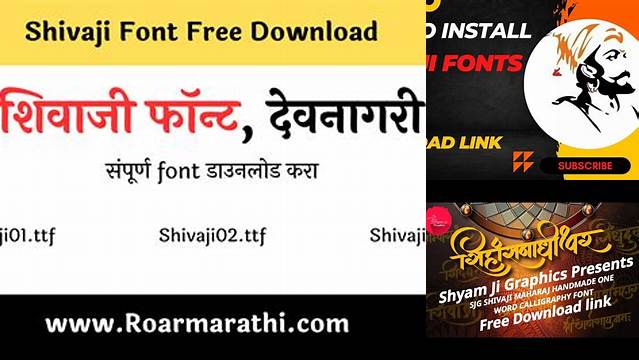
Hey guys! Are you looking to add a touch of historical elegance and cultural richness to your designs? Well, you've come to the right place! We're diving deep into the world of Shivaji fonts, exploring everything from their historical significance to where you can snag them for free. So, let's get started and unleash the power of Shivaji fonts in your creative projects!
What Are Shivaji Fonts?
Shivaji fonts are a unique family of typefaces that draw inspiration from the historical scripts and calligraphy styles prevalent during the reign of Chhatrapati Shivaji Maharaj, the great Maratha warrior king. These fonts often feature a distinctive blend of traditional Devanagari elements with a touch of artistic flair, making them perfect for projects that aim to evoke a sense of history, culture, and valor. They are not just fonts; they are a tribute to a rich heritage. When you use a Shivaji font, you're not just picking a typeface; you're connecting with a legacy. These fonts often incorporate unique curves and strokes reminiscent of ancient scripts, giving your designs a timeless and authentic feel. Imagine using a Shivaji font for a historical novel cover, a cultural event poster, or even a personalized invitation – the possibilities are endless! The beauty of Shivaji fonts lies in their versatility. They can be bold and commanding, yet also elegant and refined. This adaptability makes them suitable for a wide range of applications, from print media to digital designs. The intricate details and historical nuances embedded in each character add depth and meaning to your work, setting it apart from generic typefaces. Whether you're a graphic designer, a history enthusiast, or simply someone who appreciates the beauty of traditional scripts, Shivaji fonts offer a unique way to express yourself creatively.
Historical Significance of Shivaji Fonts
To truly appreciate Shivaji fonts, it's crucial to understand their historical context. Chhatrapati Shivaji Maharaj was a legendary figure in Indian history, known for his bravery, strategic brilliance, and unwavering commitment to Swarajya (self-rule). The scripts and calligraphy styles used during his era reflected a blend of regional influences and artistic expressions. Shivaji fonts aim to capture this essence, paying homage to a time of valor and cultural renaissance. Understanding the historical significance behind Shivaji fonts adds another layer of depth to their usage. These fonts are not just about aesthetics; they are about preserving and celebrating a cultural legacy. When you incorporate a Shivaji font into your design, you're making a statement about your appreciation for history and heritage. Consider the impact of using a Shivaji font for educational materials, documentaries, or even family history projects. The font itself becomes a storyteller, connecting the present with the past. The intricate strokes and curves of these fonts often tell a tale of resilience, determination, and cultural pride. They serve as a visual reminder of the rich heritage of the Maratha empire and the legacy of Chhatrapati Shivaji Maharaj. By using Shivaji fonts, you contribute to keeping this legacy alive and ensuring that future generations can appreciate the beauty and significance of these historical scripts.
16. Kerning and Leading with Shivaji Fonts
Kerning and leading are two fundamental typographical concepts that play a crucial role in the readability and visual appeal of your designs, especially when working with Shivaji fonts. Let's delve into what kerning and leading are and how to apply them effectively when using Shivaji fonts. Kerning refers to the adjustment of the spacing between individual letter pairs in a font. The goal of kerning is to create a visually consistent and harmonious spacing between letters, preventing letters from appearing too crowded or too far apart. Shivaji fonts, with their unique letterforms and intricate details, often require careful kerning to ensure optimal readability. Certain letter combinations, such as